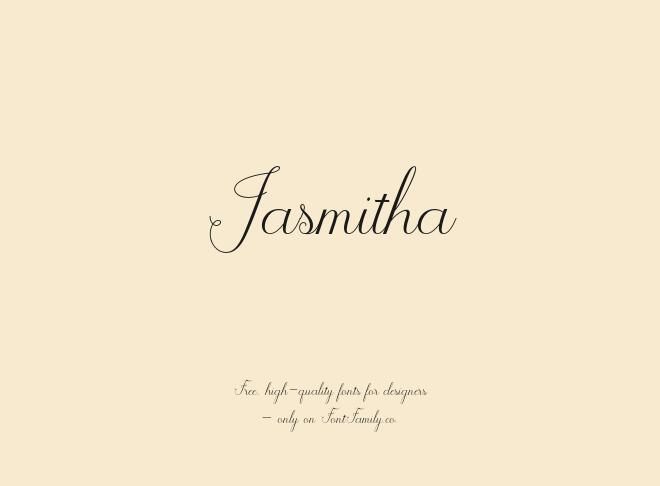
Jasmitha Font
Introducing Jasmitha Font, a modern and elegant handwritten typeface. Designed with delicate curves and flowing lines, it exudes sophistication, making it perfect for branding, logo design, stationery, and more. The font's modern style is reminiscent of trendy, contemporary designs, yet it retains a unique charm that sets it apart. Its versatility allows it to be used in a wide array of design contexts, from digital designs to print. The font's clean lines and elegant style make it a great choice for designers looking for a modern, handwritten aesthetic. Despite its modern style, Jasmitha Font has a timeless appeal, making it an excellent choice for projects that require a blend of contemporary and classic design elements.